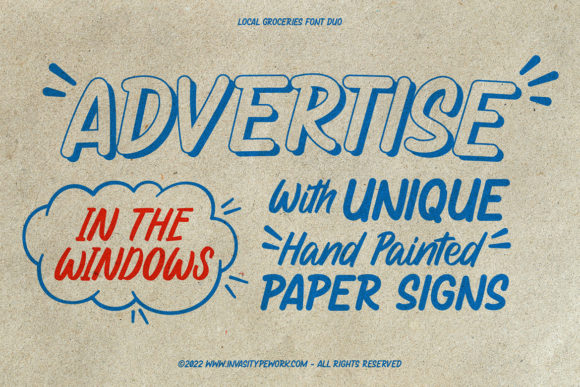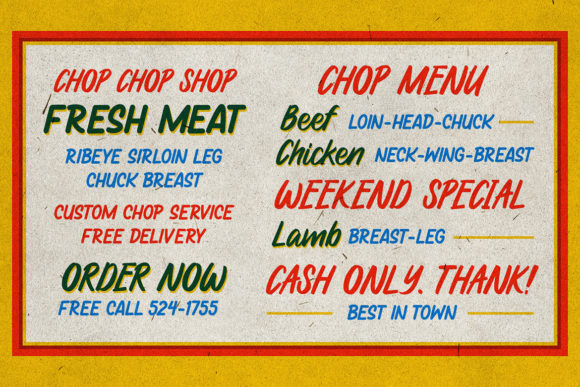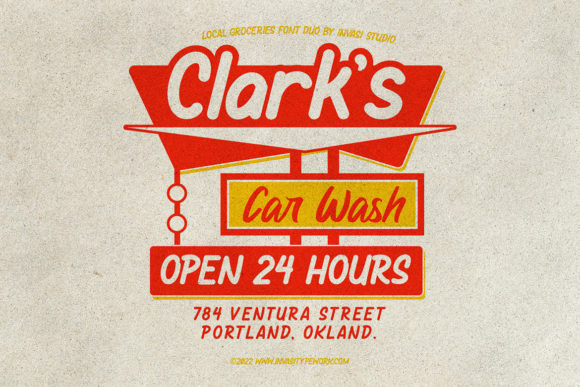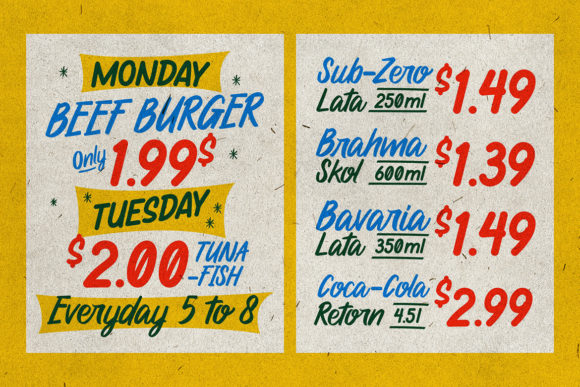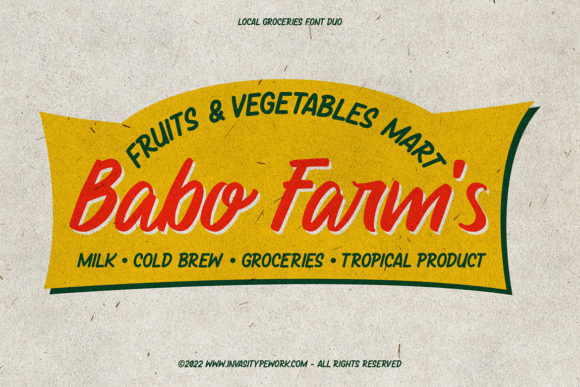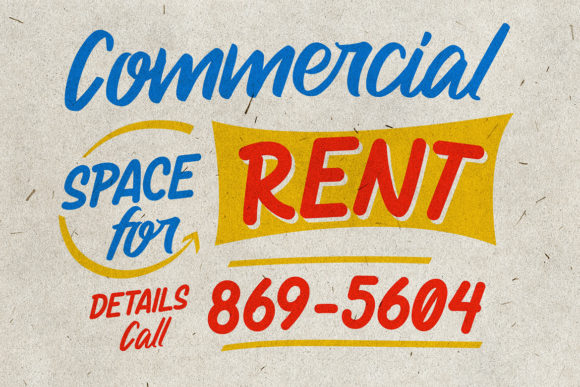
Introduction to Local Groceries Font Font
Fonts play a crucial role in design, and the Local Groceries Font font is a typeface that brings both character and versatility to any project. Whether you’re working on a branding project, a website, or a print design, the Local Groceries Font font offers a unique style that can elevate your work.
Local Groceries is a cool and retro styled display font.
It is perfect for product packaging, branding project, magazine covers, social media, wedding, or just used to express words above the background .
Key Features of Local Groceries Font Font
Why Choose Local Groceries Font Font?
The Local Groceries Font font is more than just a typeface – it’s a design tool that helps you communicate your message with style and clarity. Its unique character set and versatile design make it suitable for a wide range of applications, from elegant invitations to bold headlines.
With its carefully crafted letterforms and balanced proportions, the Local Groceries Font font ensures readability and visual appeal across all mediums.
What makes Local Groceries Font font special?
The Local Groceries Font font stands out with its unique design, exceptional readability, and versatility across various design applications.